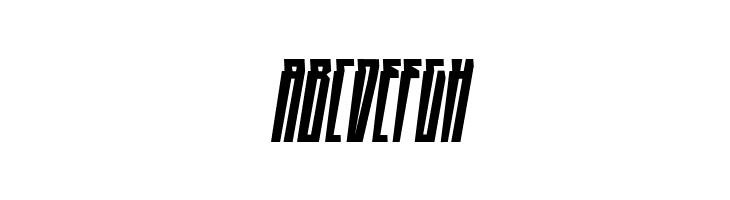
Concielian Jet Expanded Semi-Italic Font
- Font: Concielian Jet Expanded Semi-Italic
- Weight: Expanded Semi-Italic
A bold, italicized font with sharp angles and a modern, dynamic style.